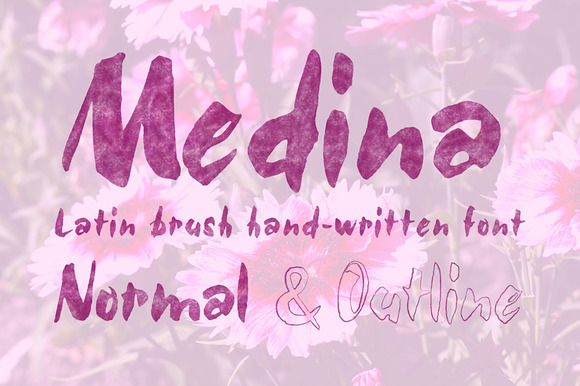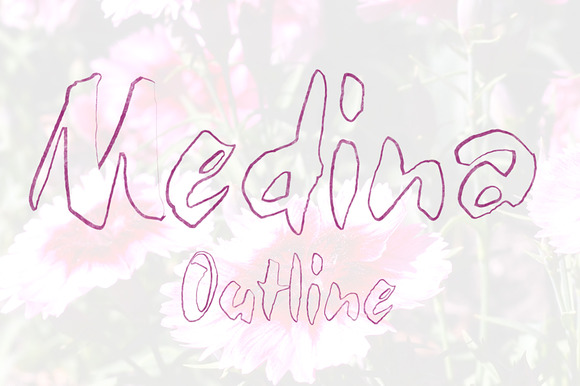
Medina Brush Font
The font family is most suitable for headlines of all sizes. Olive font is applicable for any type of graphic design in print graphics and perfect for logos, badges, t-shirts and other items like posters. Also I recommend it for Wedding Invitations and other romantic events.
Included are
• Medina Regular
• Medina Outline